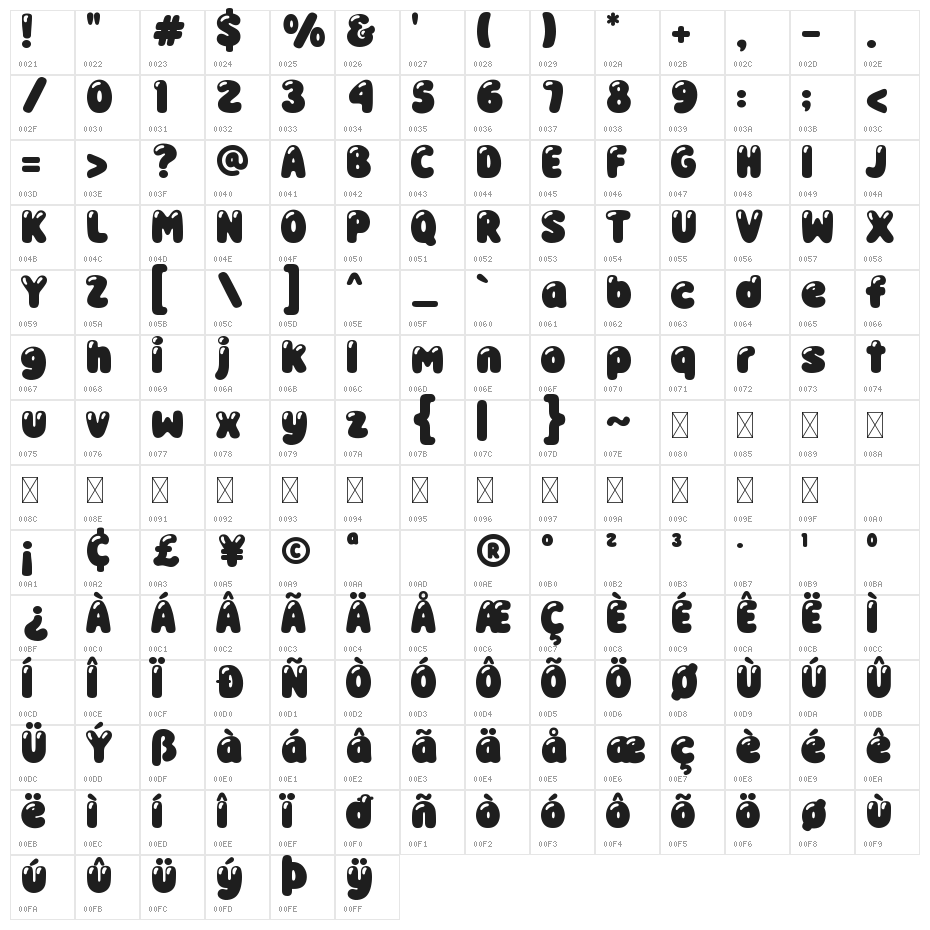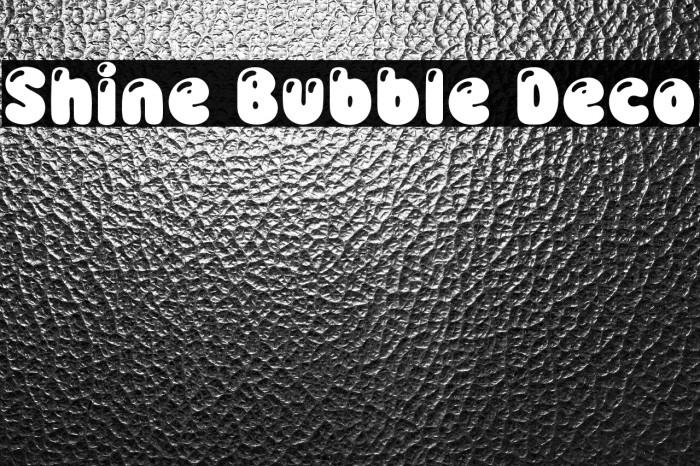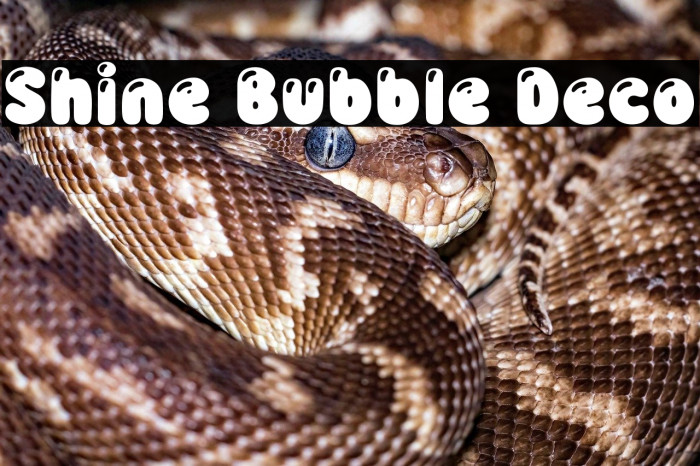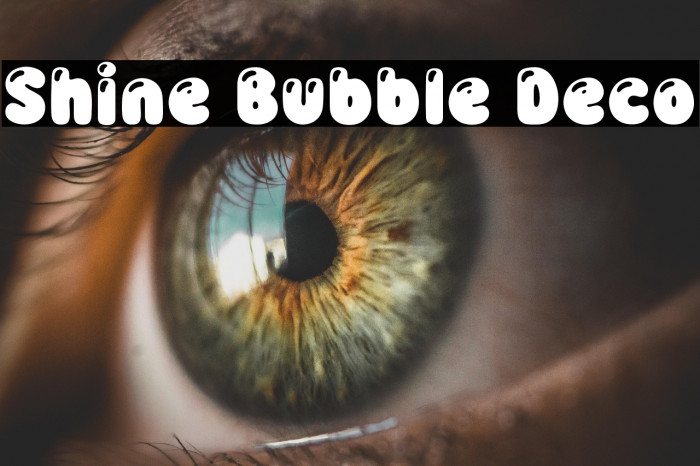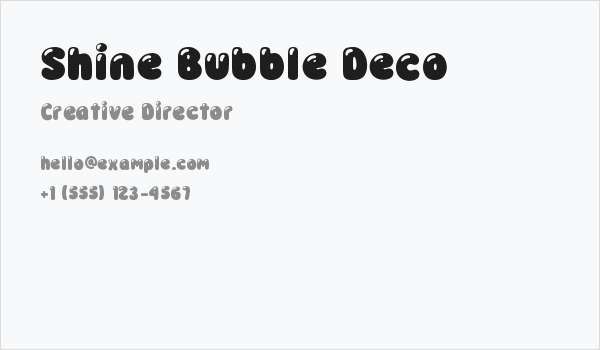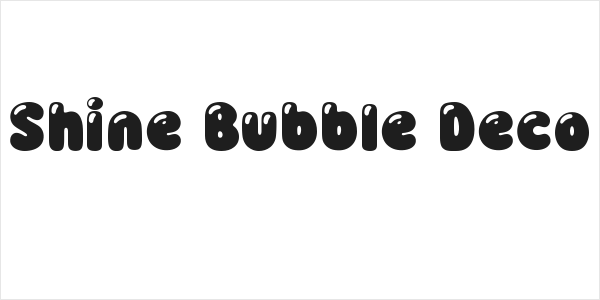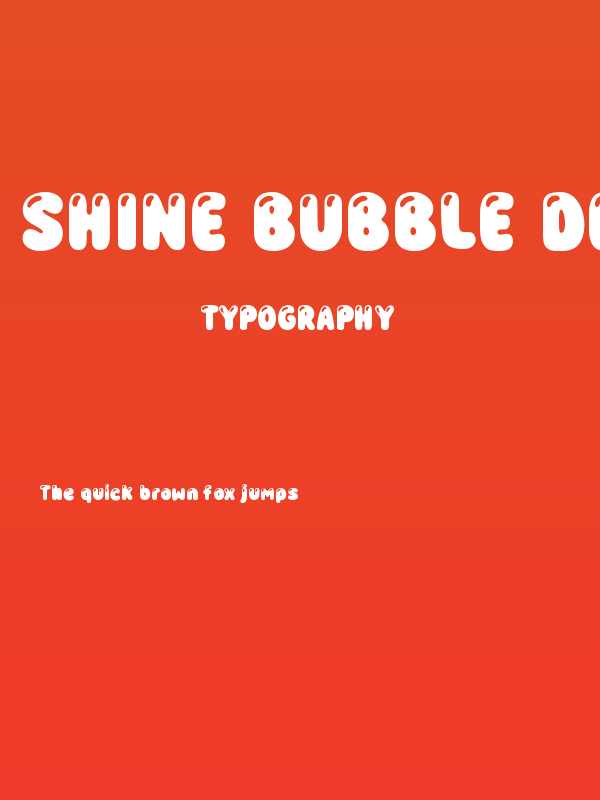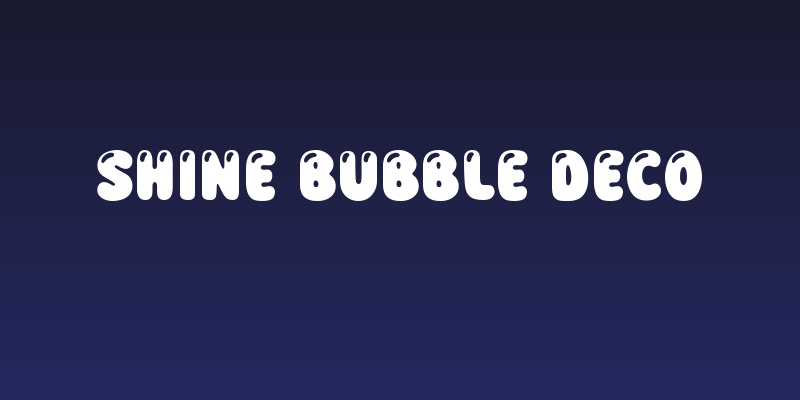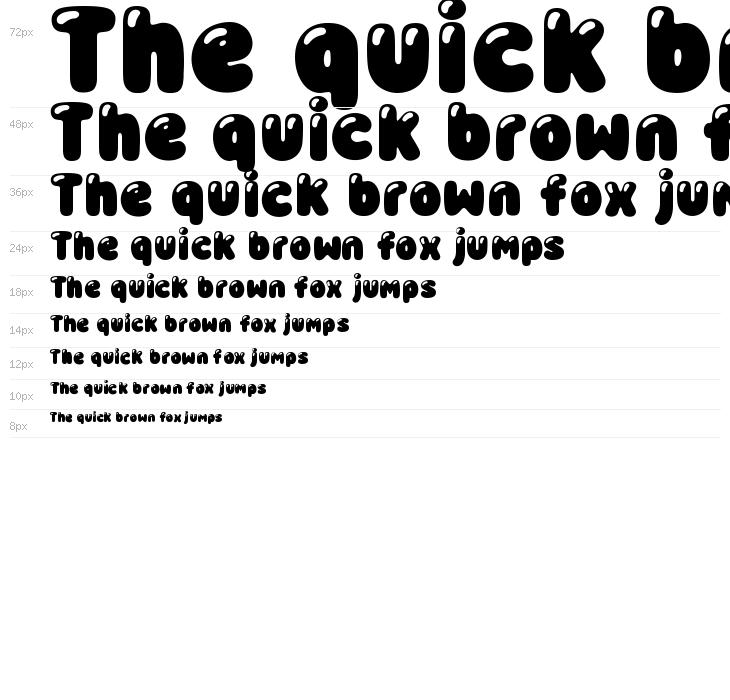
Shine Bubble Deco Font
Shine Bubble Deco Description
This playful and bold font features a bubbly, rounded design that exudes a sense of fun and whimsy. Each character is crafted with a thick, uniform stroke, creating a cohesive and visually striking appearance. The letters have a soft, inflated look, reminiscent of balloons or bubbles, which adds a touch of lightheartedness. The font maintains consistent proportions across uppercase, lowercase, and numeral sets, ensuring readability while maintaining its unique style. Its boldness and distinctiveness make it ideal for projects that require a strong visual impact.